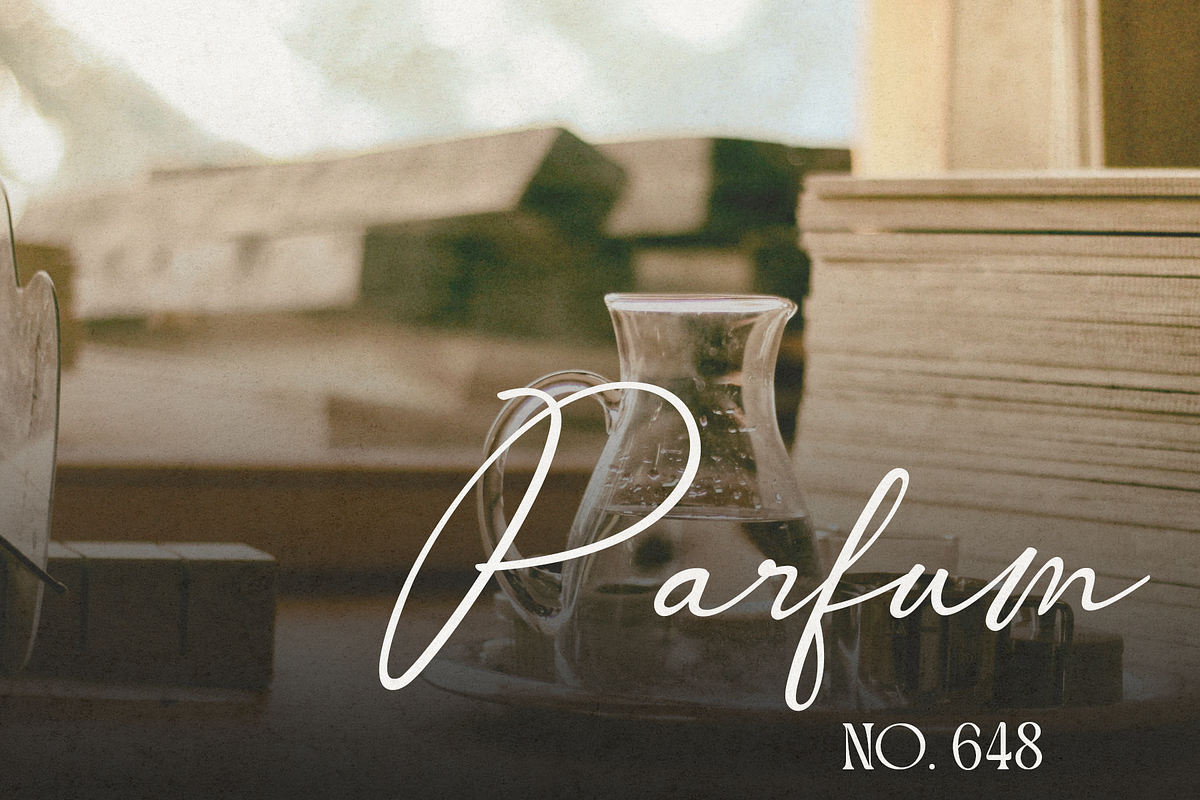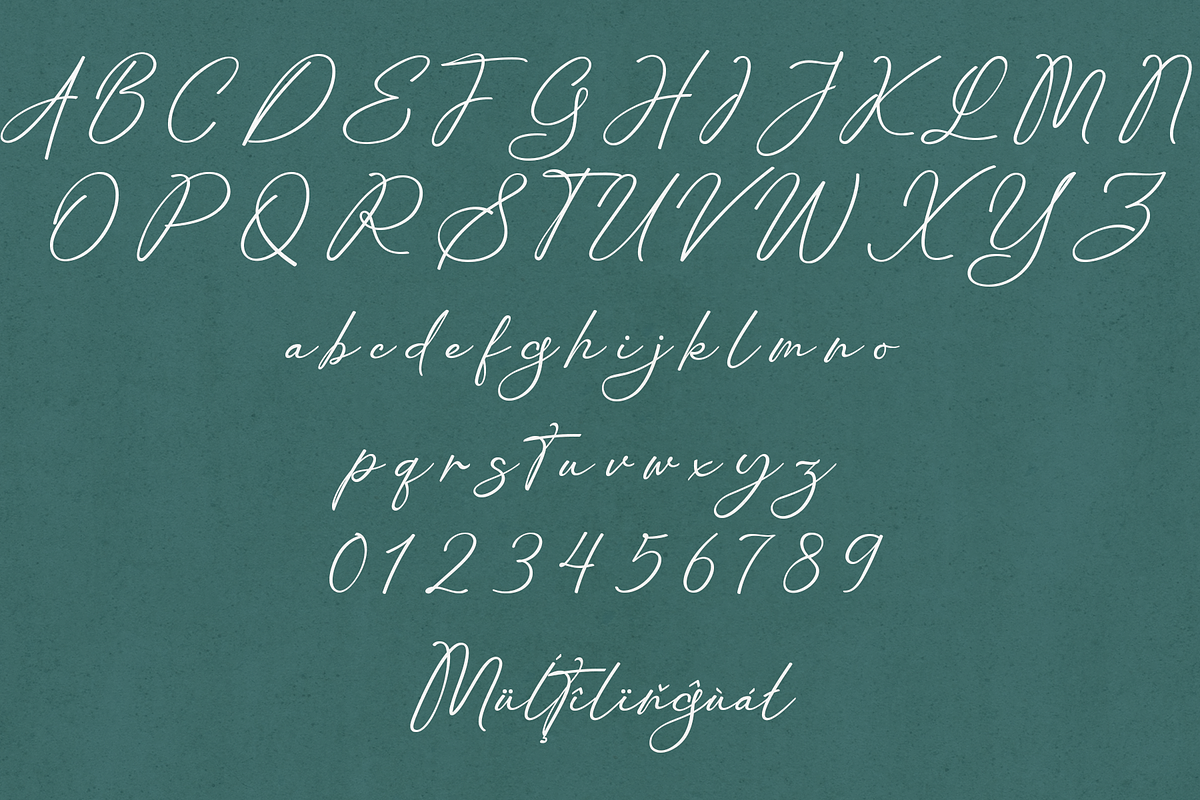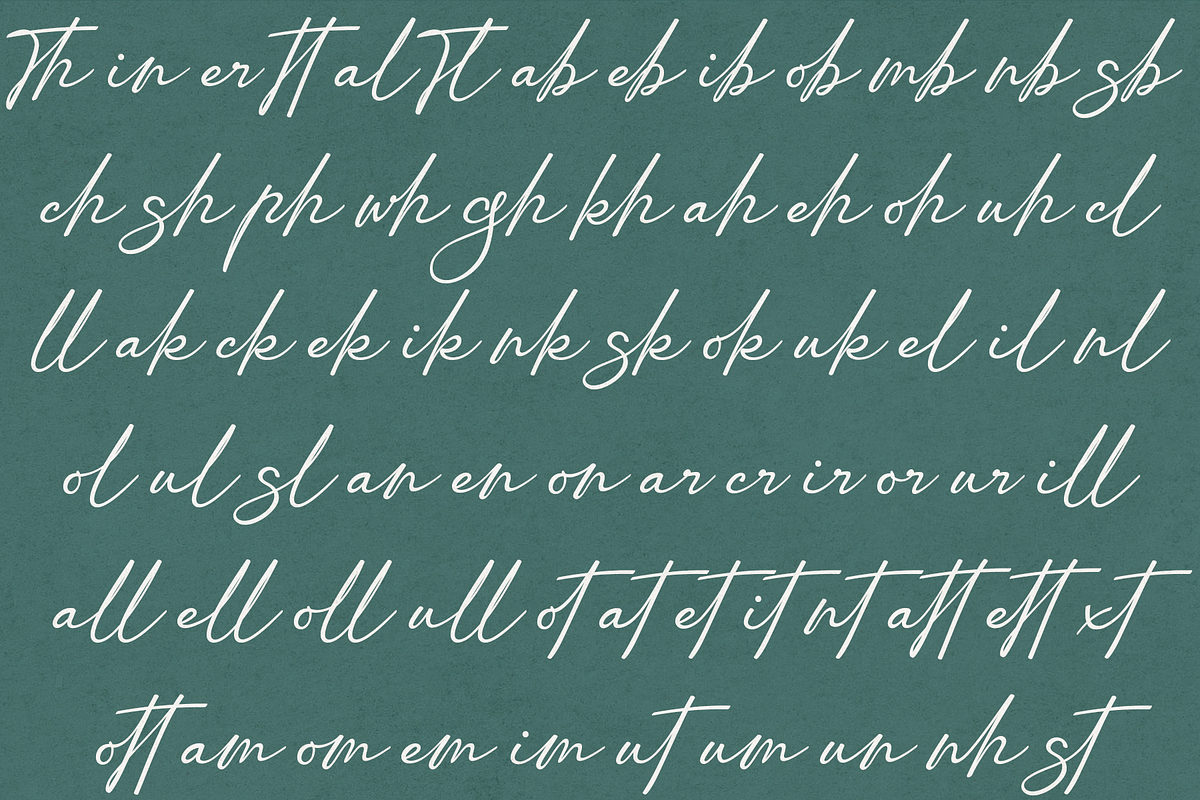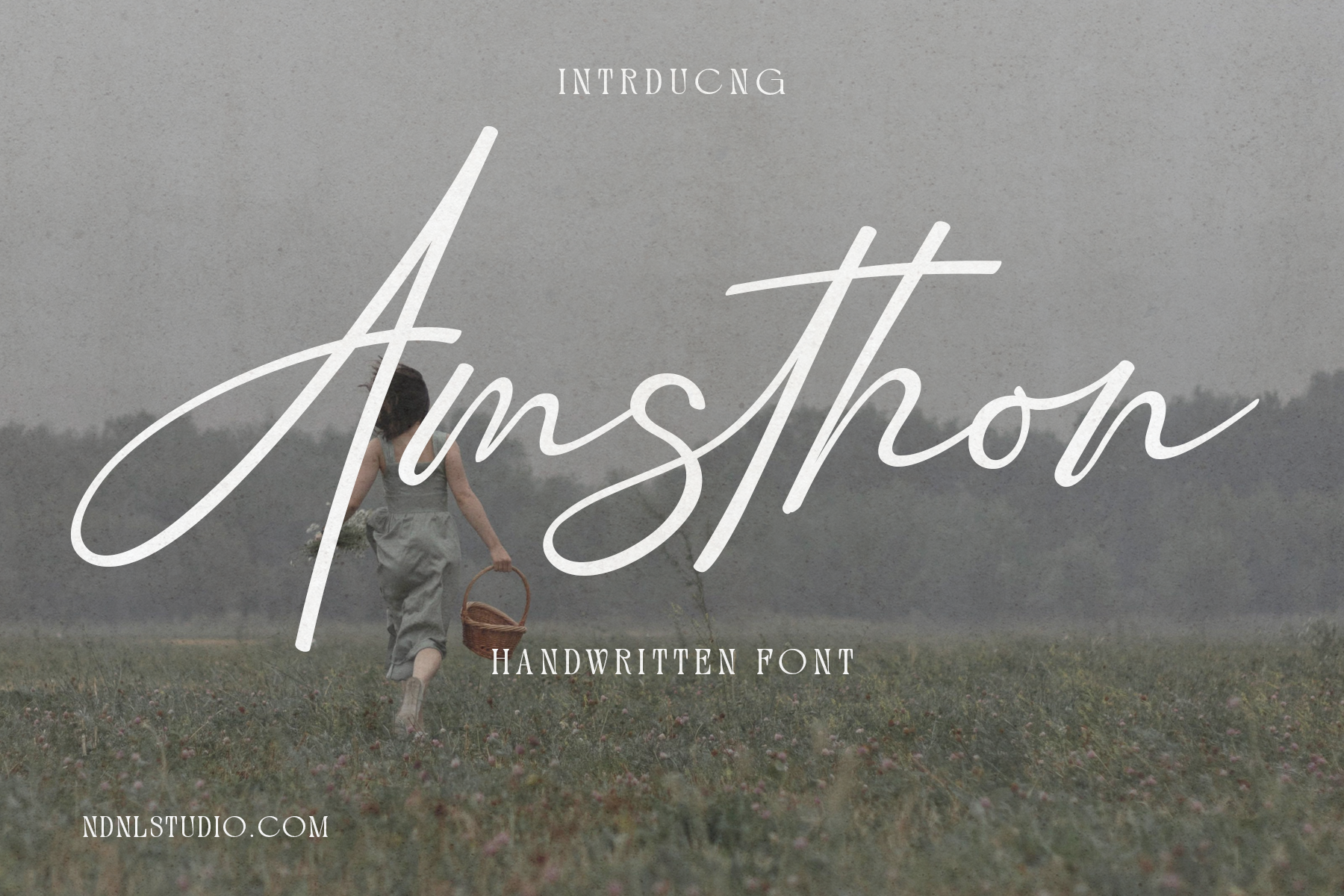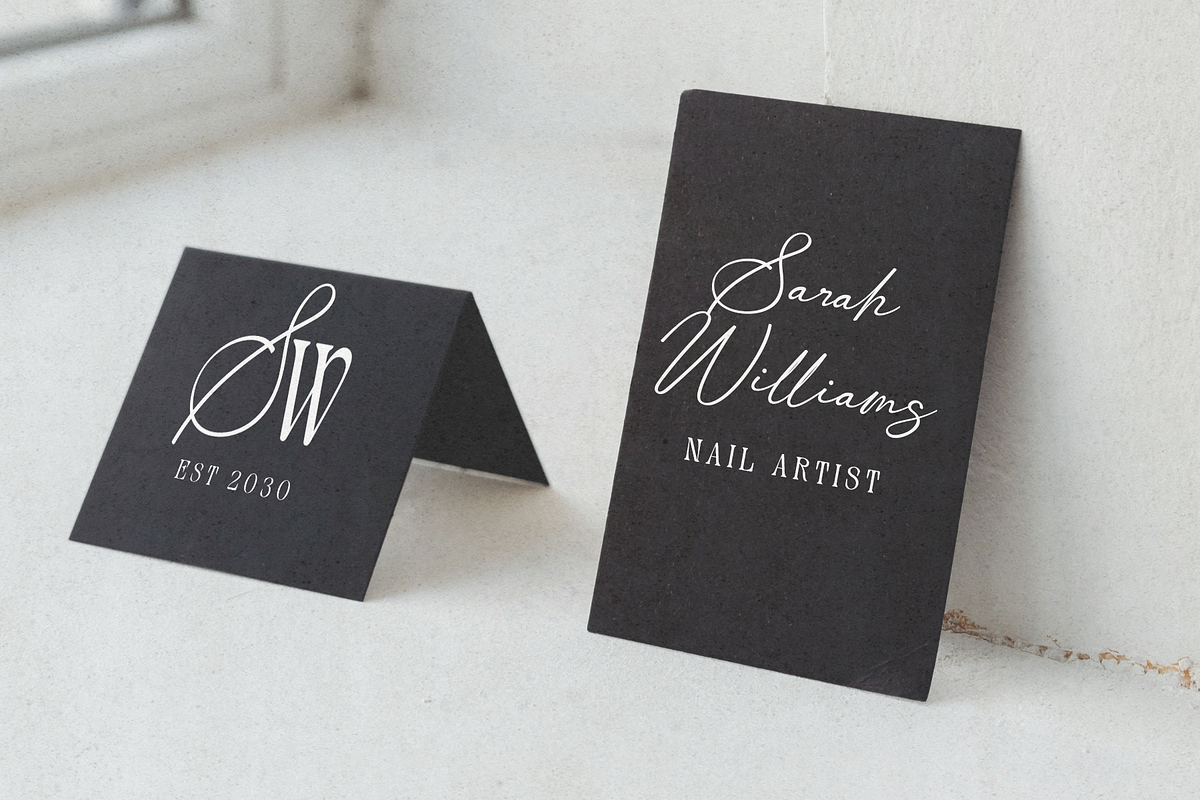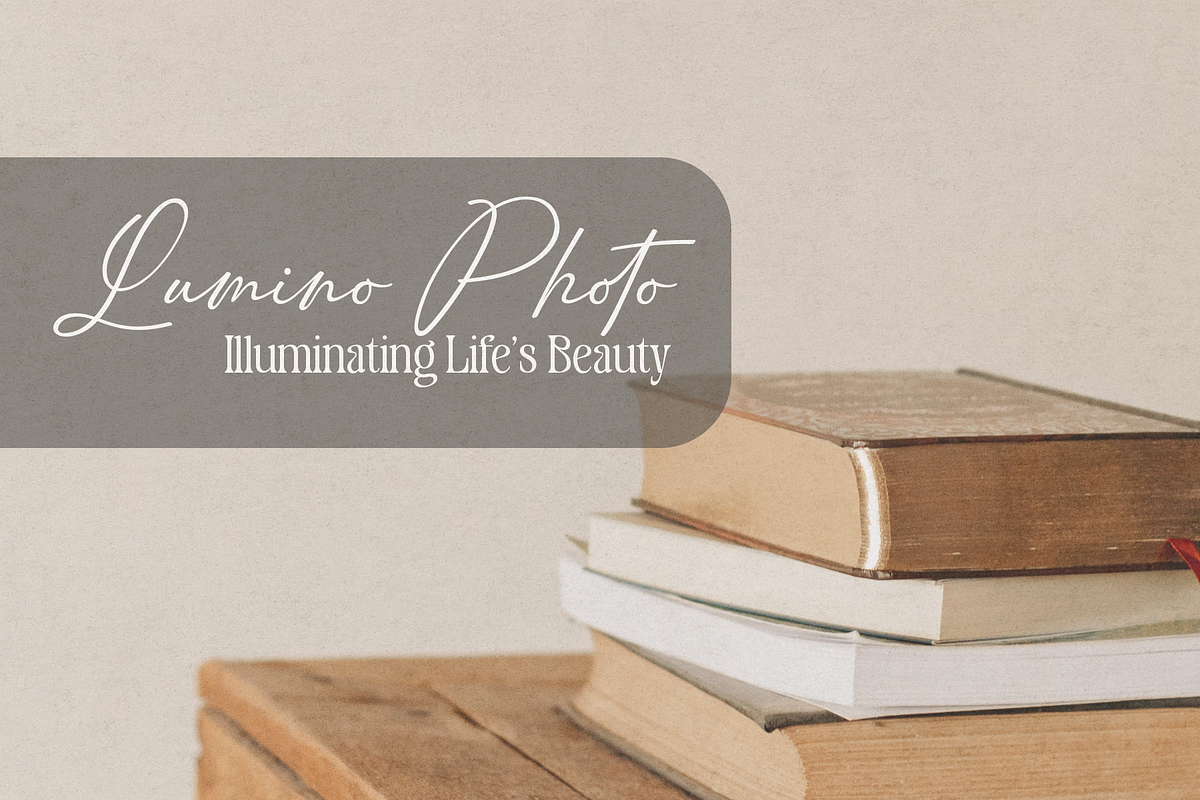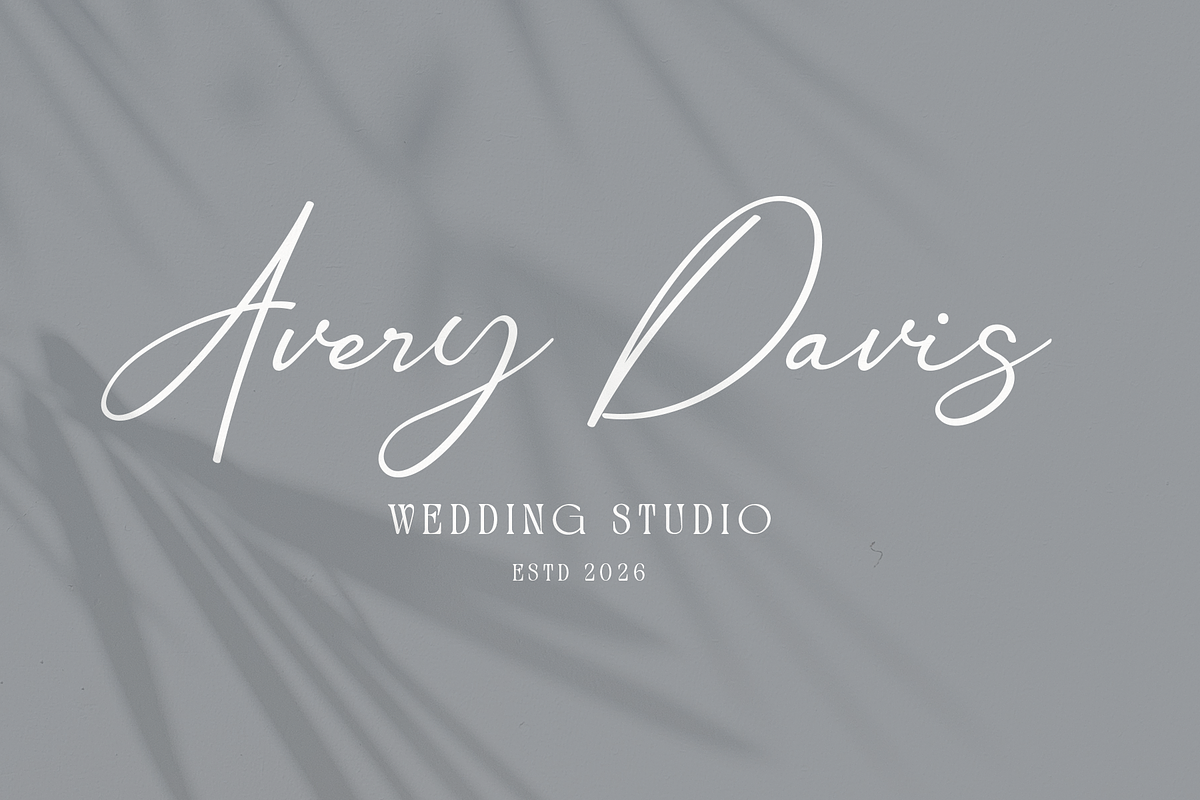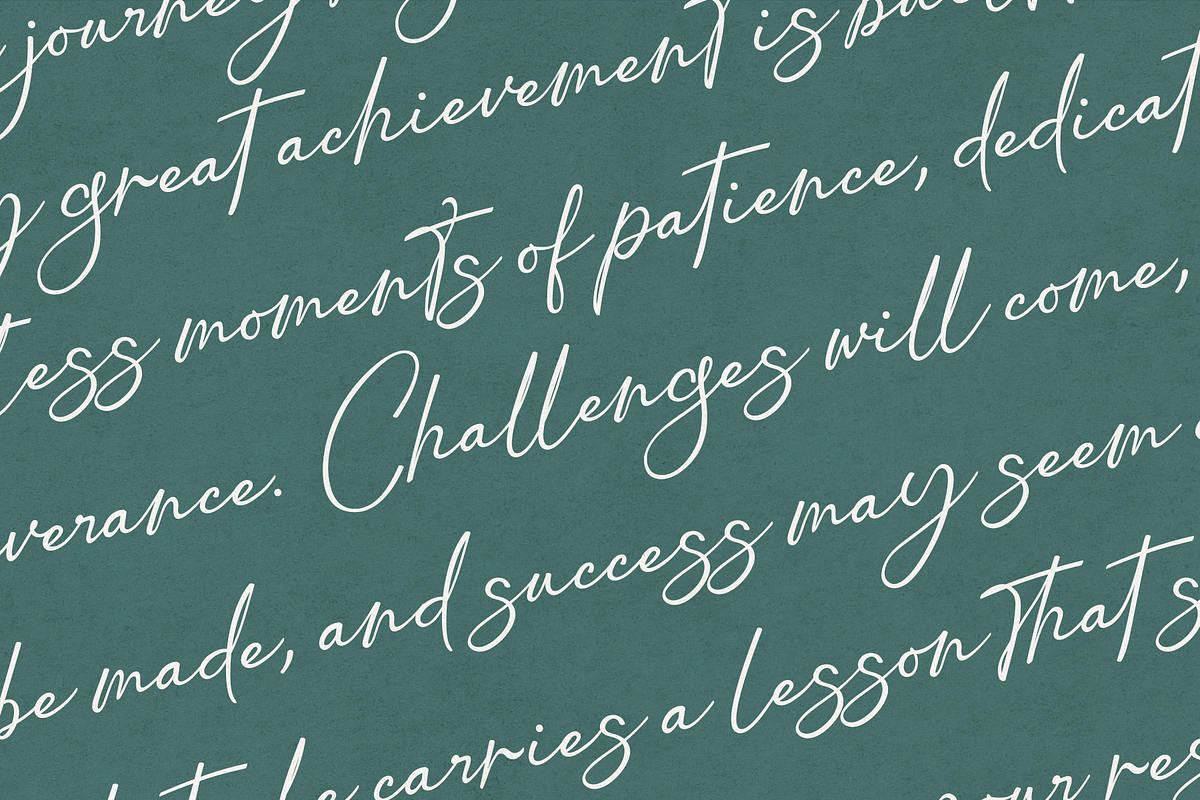
Amsthon – Handwritten Font
Amsthon is a graceful handwritten script font designed to bring elegance and authenticity to every project. With its flowing strokes, smooth curves, and natural signature-style appearance, Amsthon creates a warm, personal feel while maintaining a refined and modern aesthetic.
Perfect for branding, wedding invitations, logos, social media, packaging, greeting cards, beauty products, fashion editorials, photography watermarks, and other creative designs, Amsthon adds a sophisticated handwritten touch that stands out effortlessly.
– Character set A-Z
– Uppercase & Lowercase
– Numerals & Punctuation
– Accented Characters (West Europe)